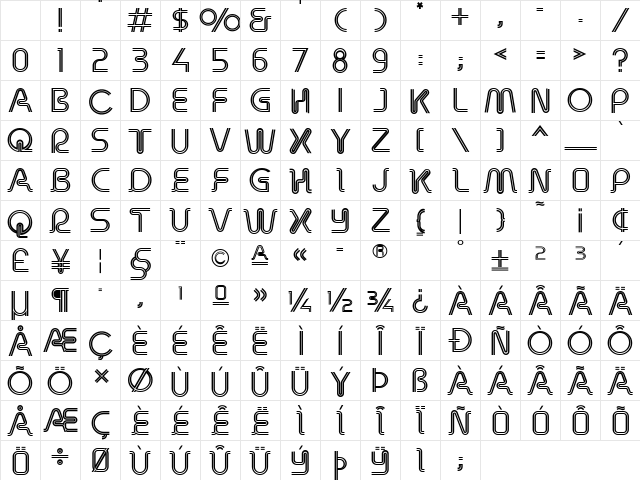
Retro Stereo Thin wears its vintage influences proudly, with letterforms that recall mid-century signage, classic packaging, and nostalgia-driven design. Its slender proportions lend an understated elegance to any composition.
Font Pairing: Combine Retro Stereo Thin with a simple slab or neutral sans - period-accurate companions reinforce the vintage feel without competing for attention.
Pro Tip: Lean into Retro Stereo Thin's period character by pairing it with aged paper textures, muted colour palettes, and vintage illustration styles.